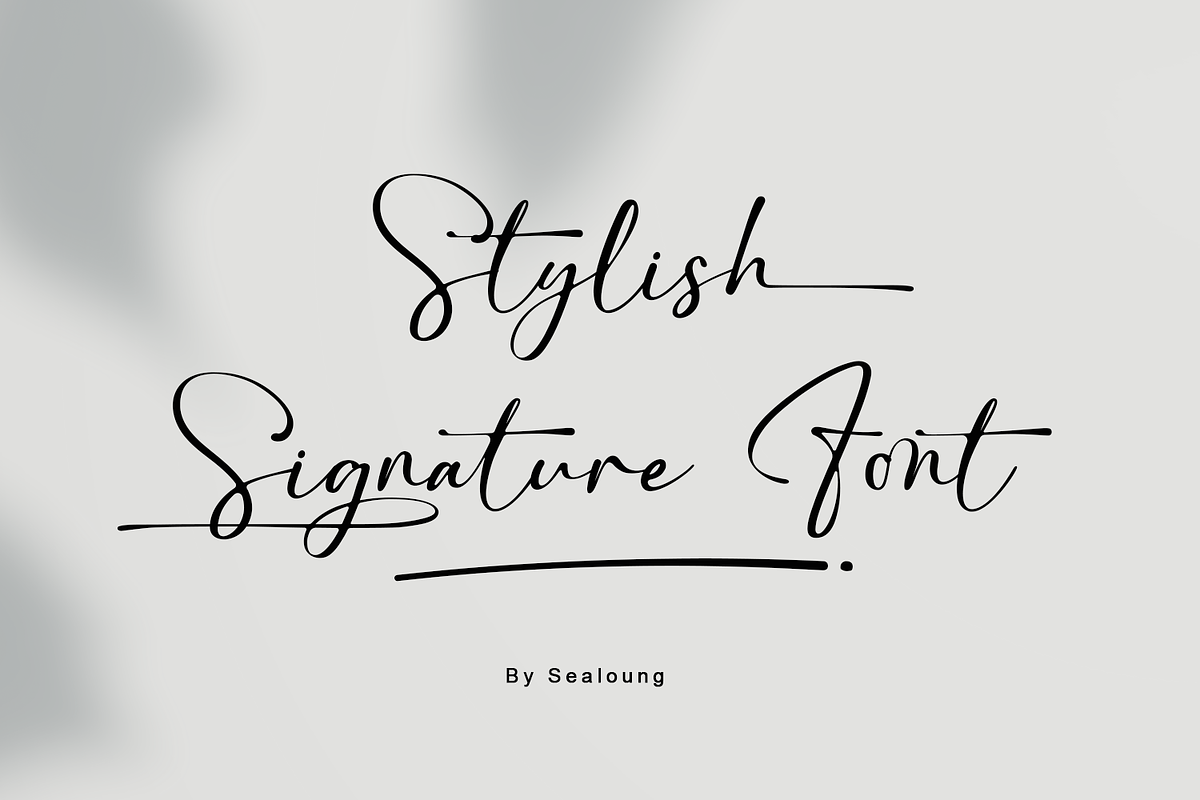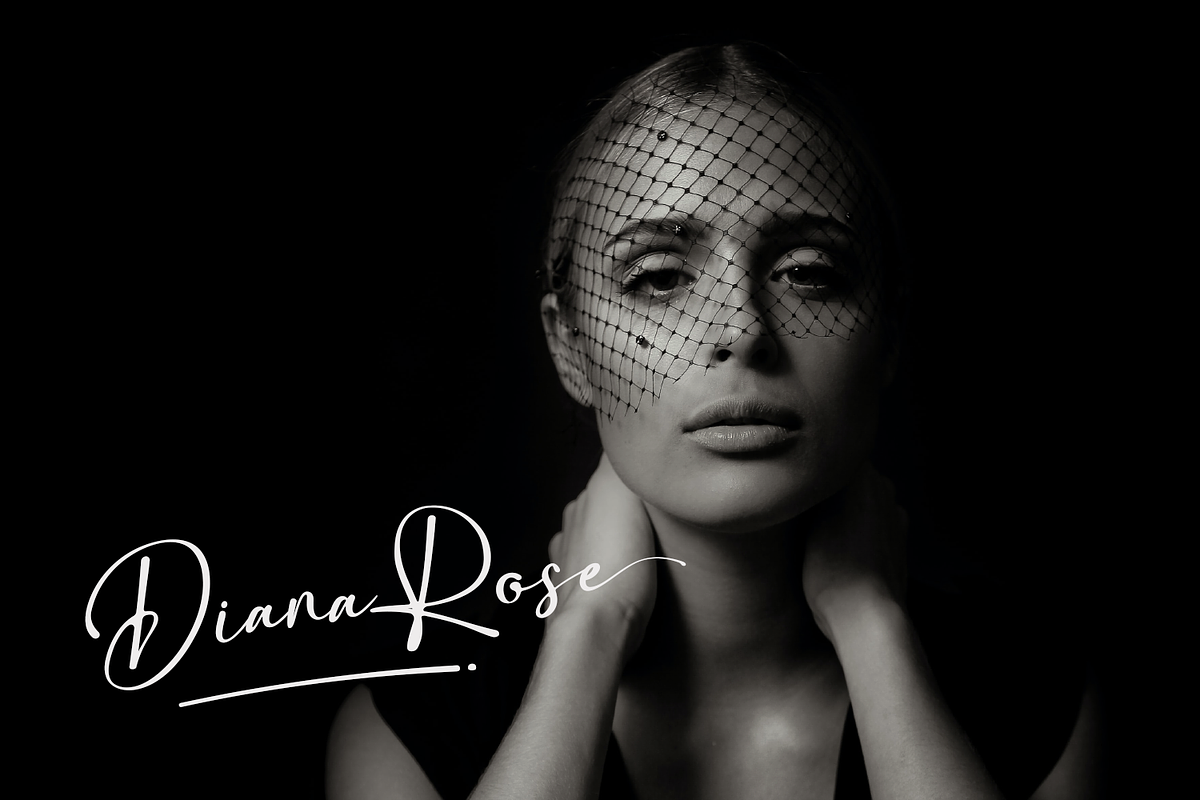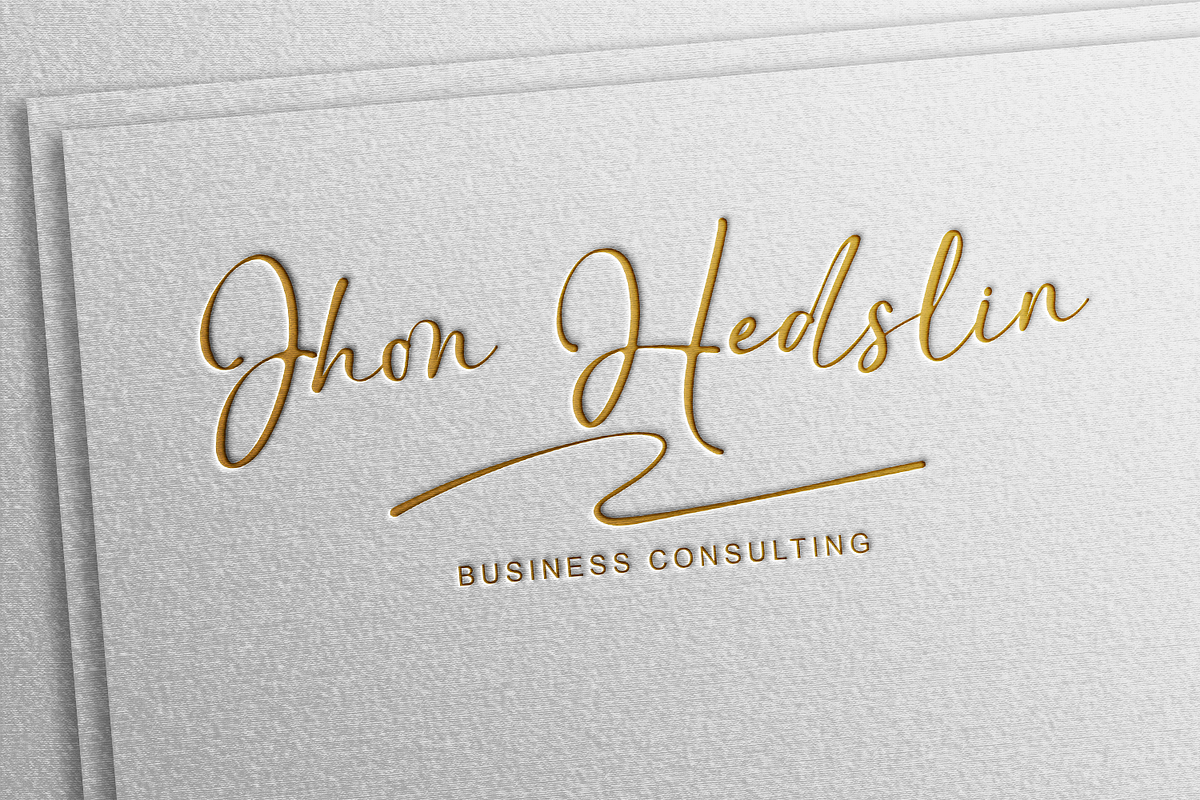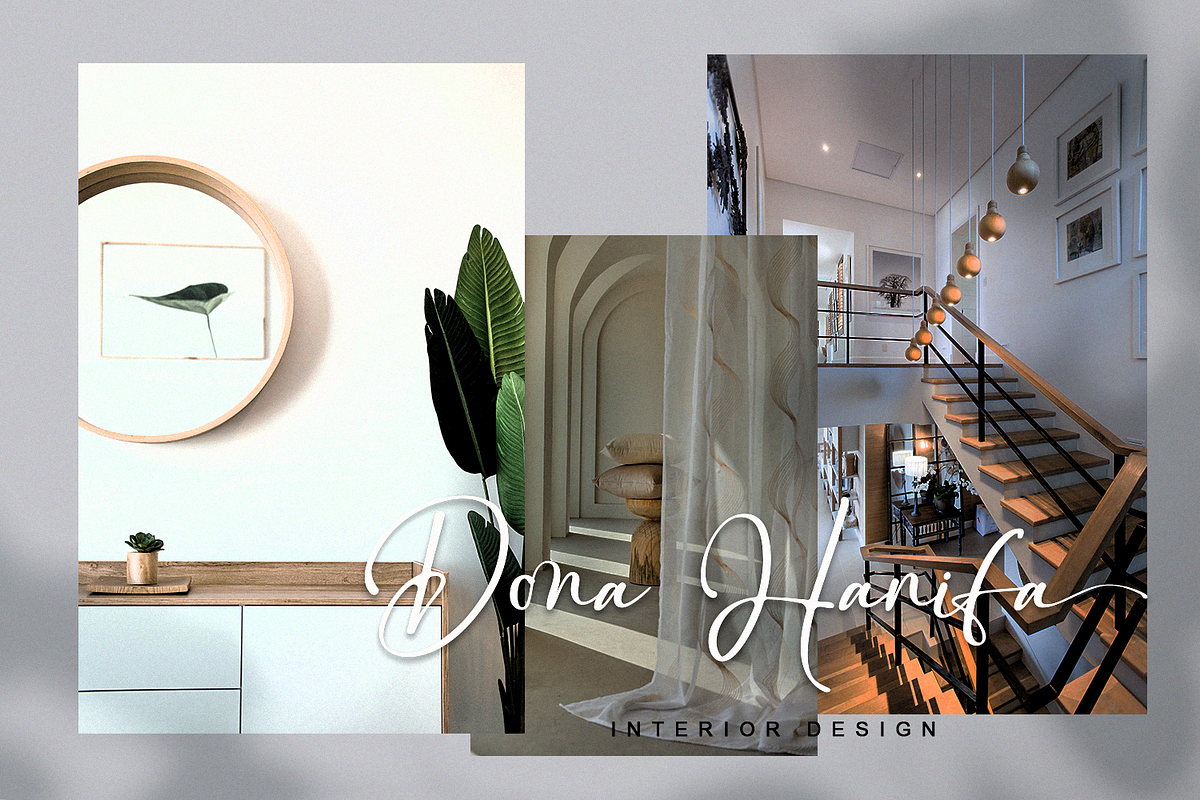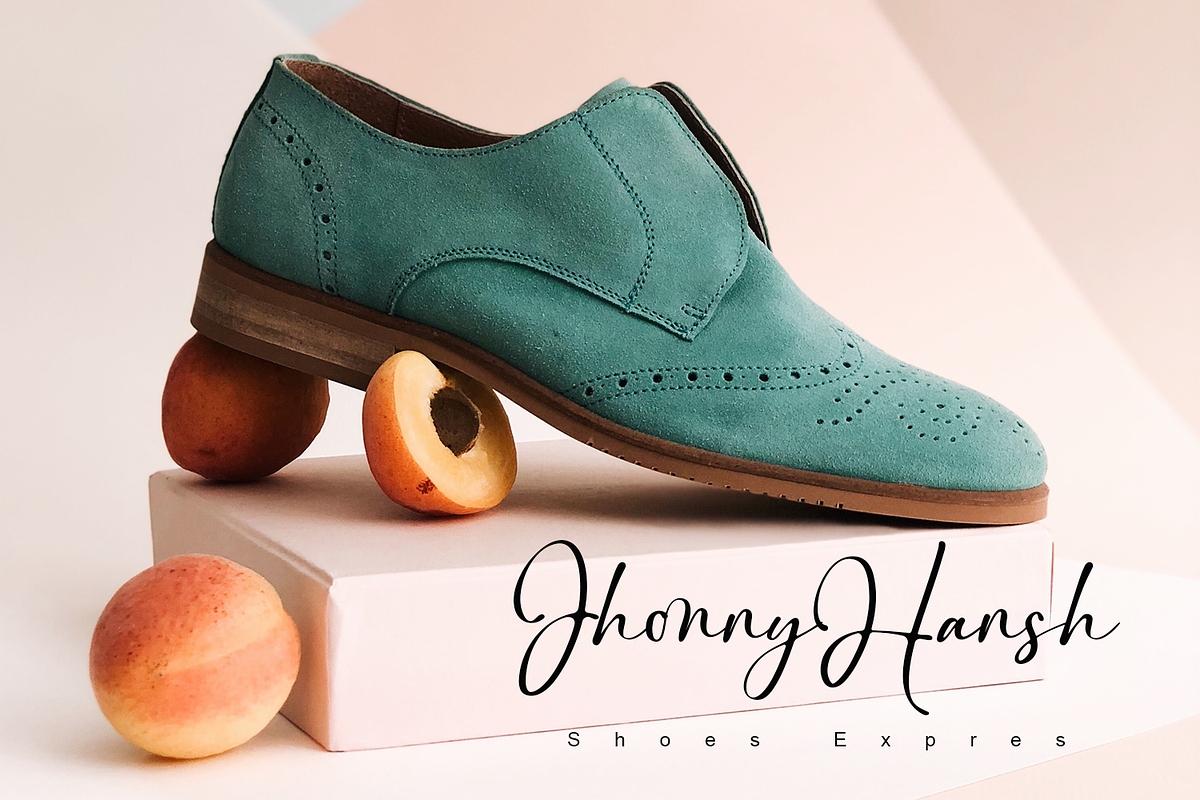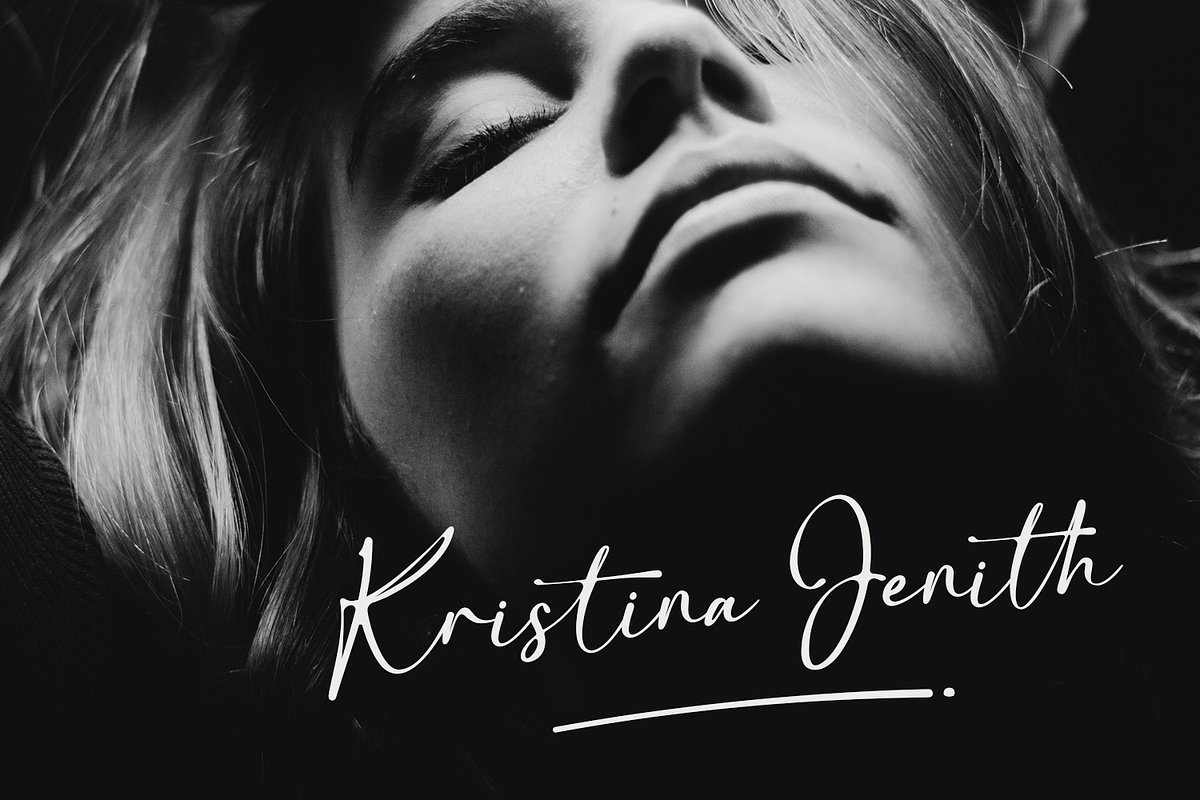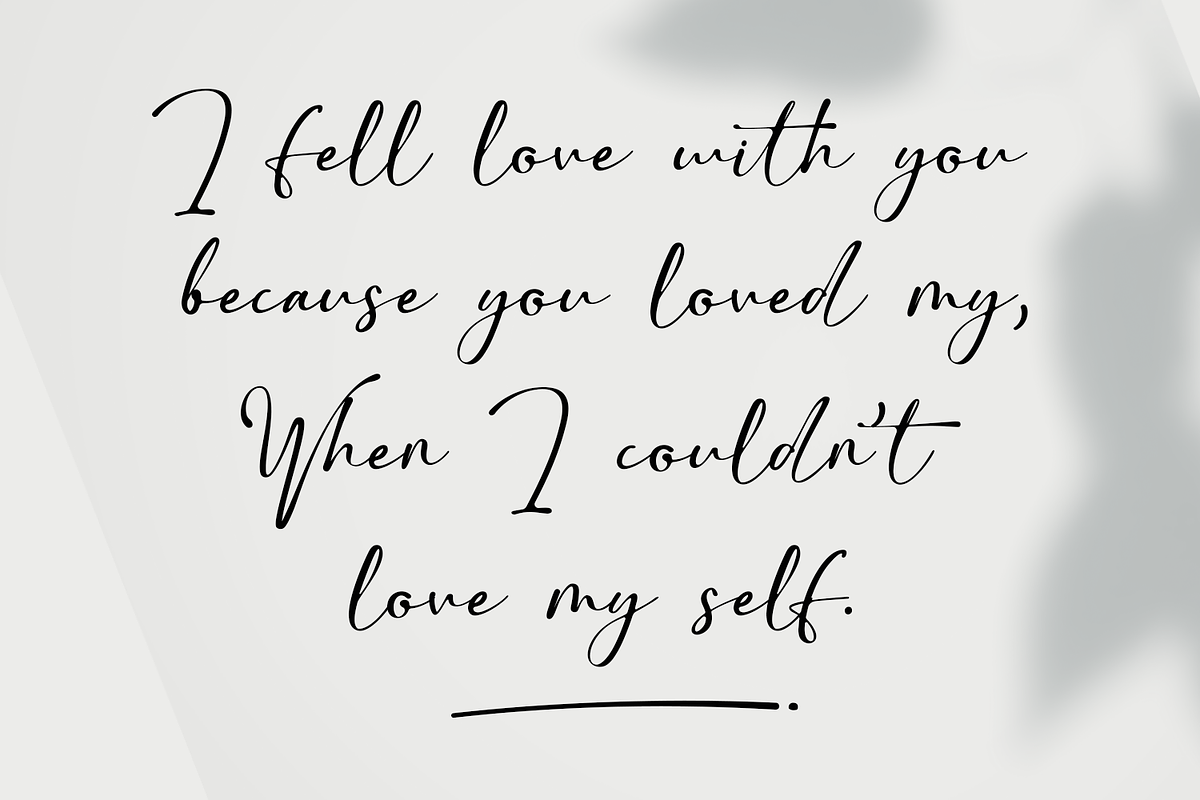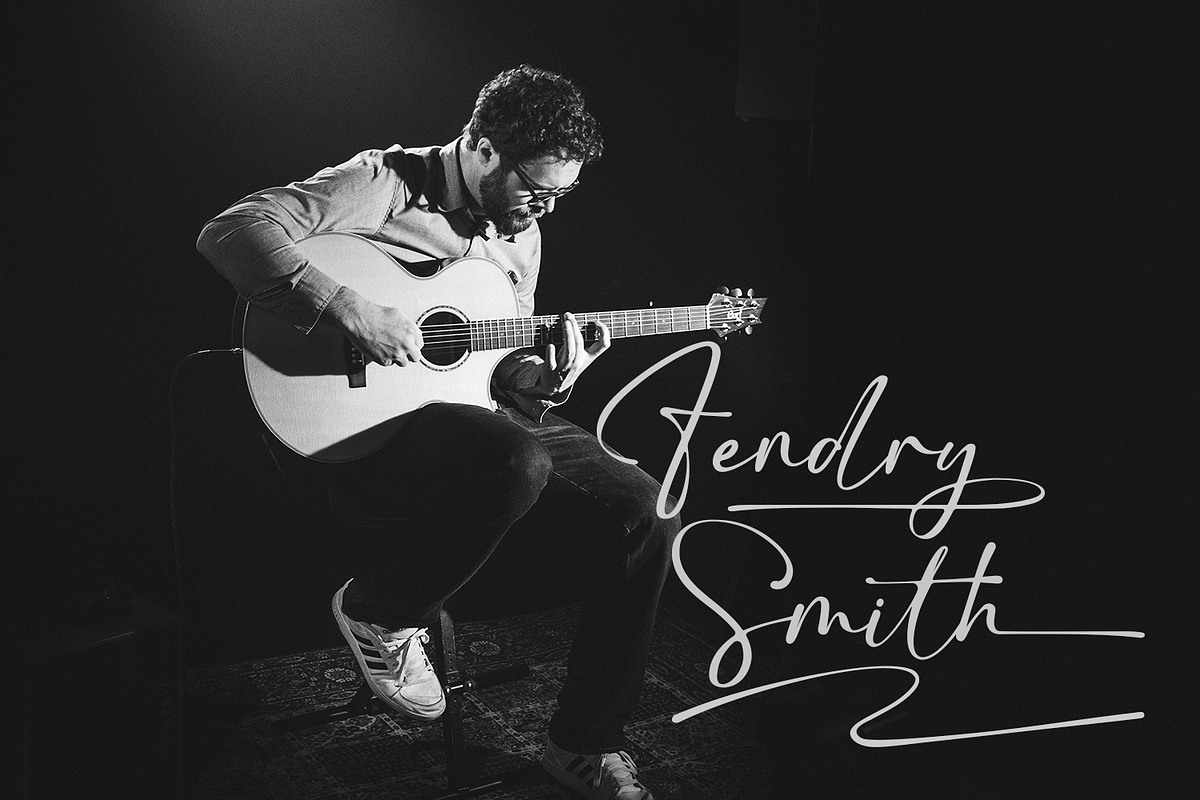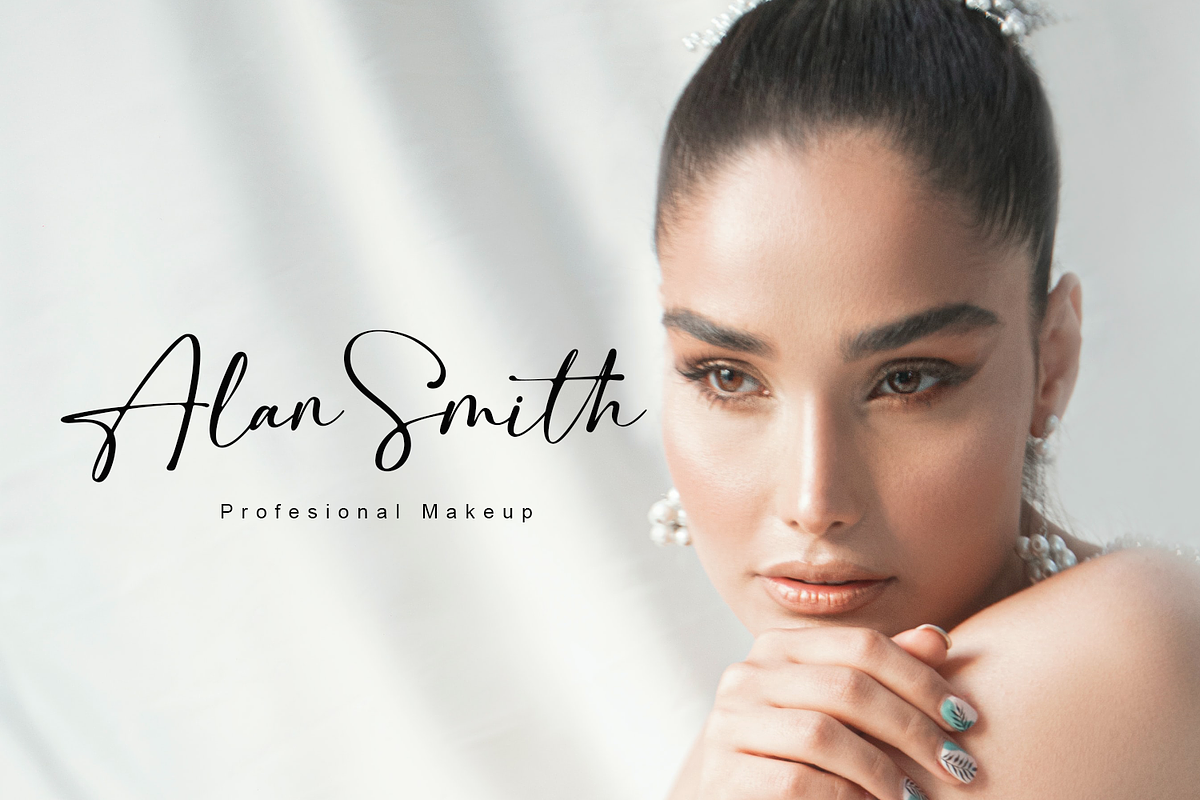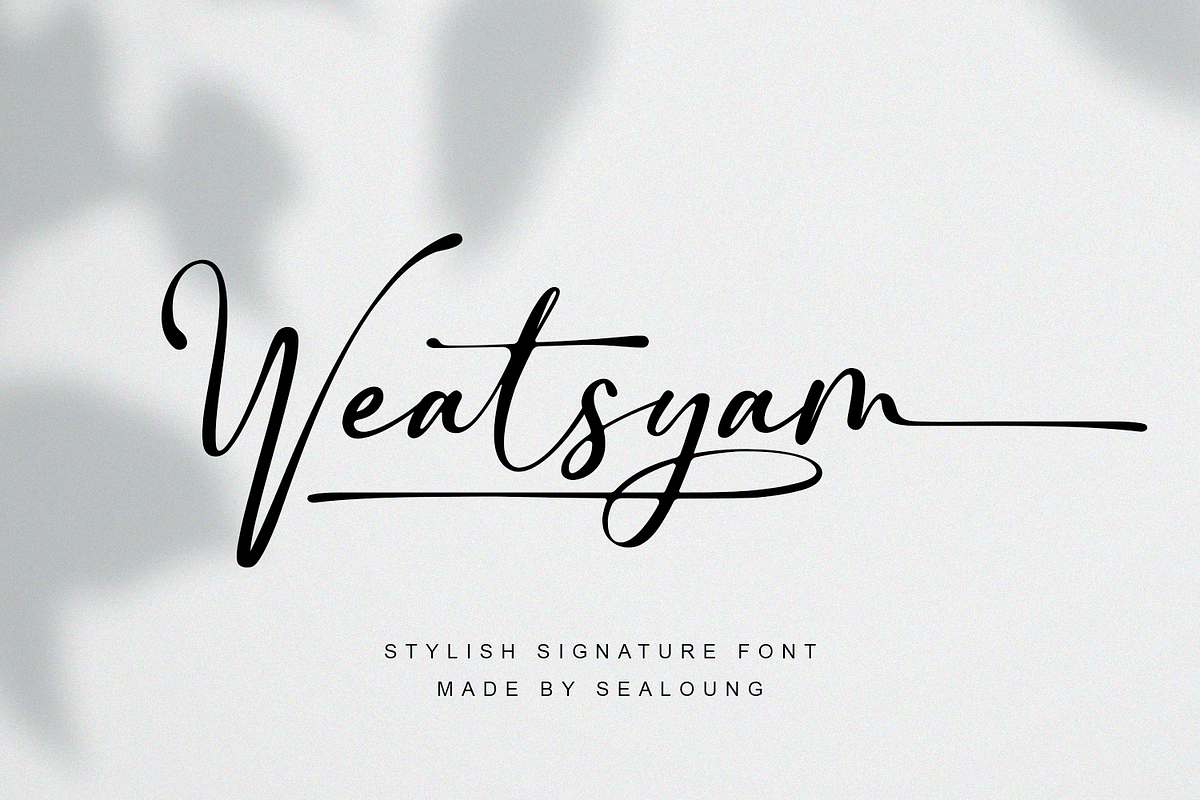
Weatsyam
Weatsyam is a perfect signature font, with a natural & stylish flow. Weatsyam Font is perfect for many different project such as logos & branding, invitation, stationery, wedding designs, social media posts, advertisements, product packaging, product designs, label, photography, special events or anything.
- ligatures,
- stylistic alternates,
- uppercase and Lowercase letters,
- numbering and punctuations,
- multilingual support,
- Begining & Ending Swash